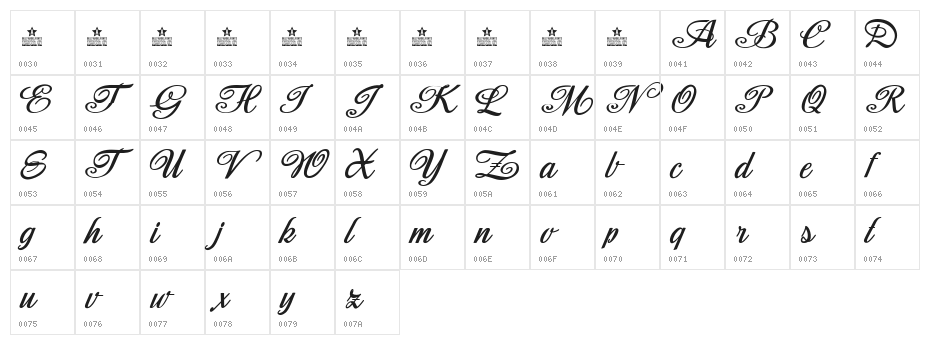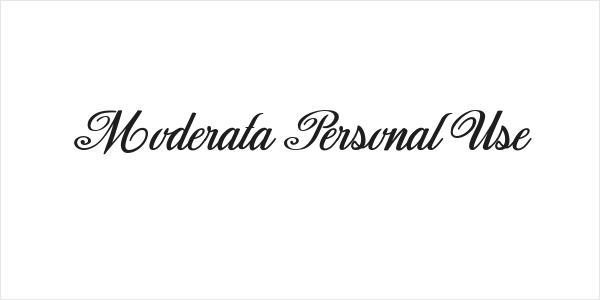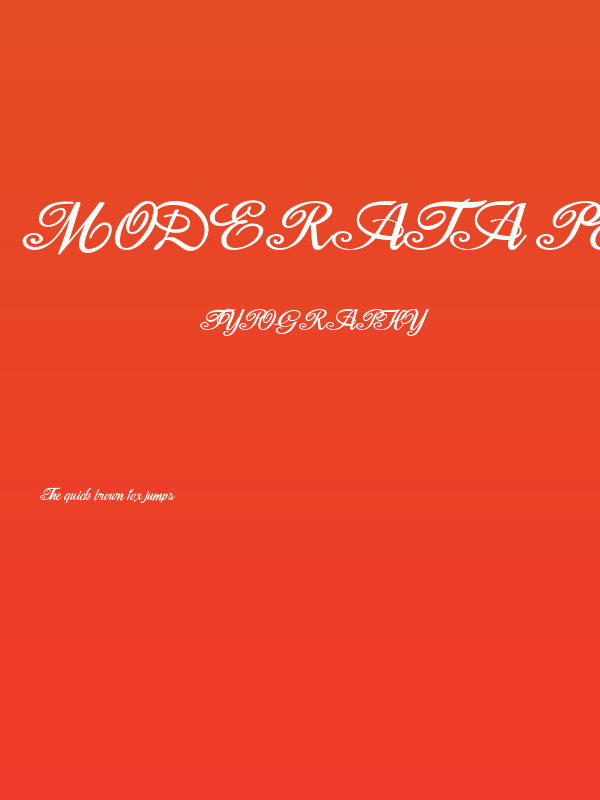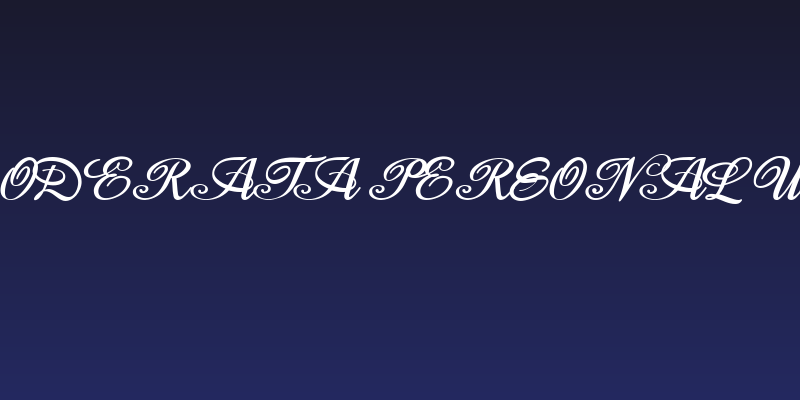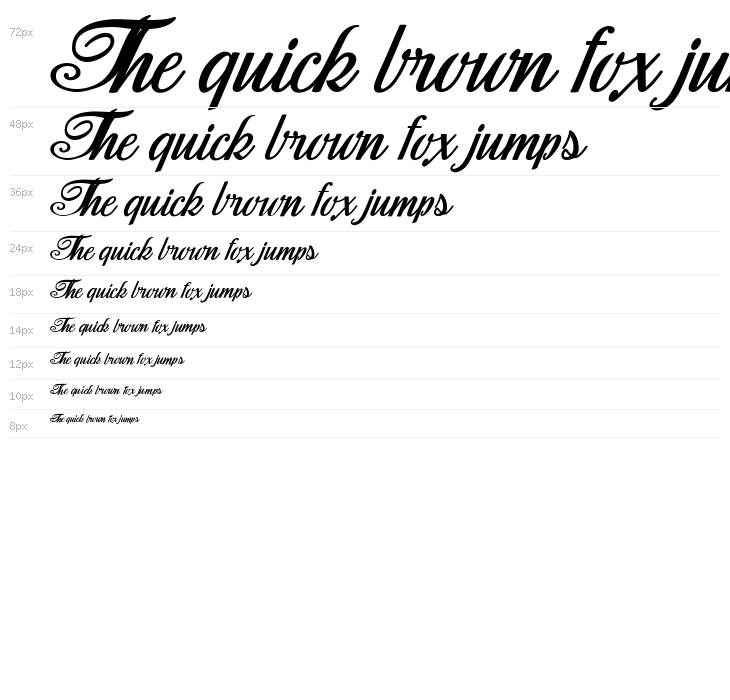
Moderata Personal Use Font
Moderata Personal Use Description
This font features an elegant and flowing script style, characterized by its ornate and decorative letterforms. The uppercase letters exhibit intricate swirls and flourishes, giving them a sophisticated and artistic appearance. The lowercase letters maintain a smooth and connected cursive style, enhancing readability while retaining a sense of elegance. The numerals and special characters are designed to complement the overall aesthetic, with consistent stroke widths and decorative elements. This font is ideal for projects that require a touch of elegance and sophistication, such as invitations, branding, and decorative headings.
Use CaseHeadlines, Logos, Invitations
Proposed ProjectsIdeal for wedding invitations, luxury branding, decorative headings, and artistic projects.